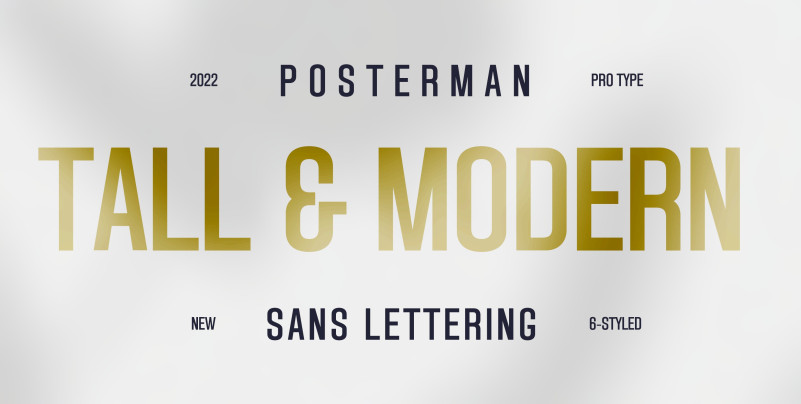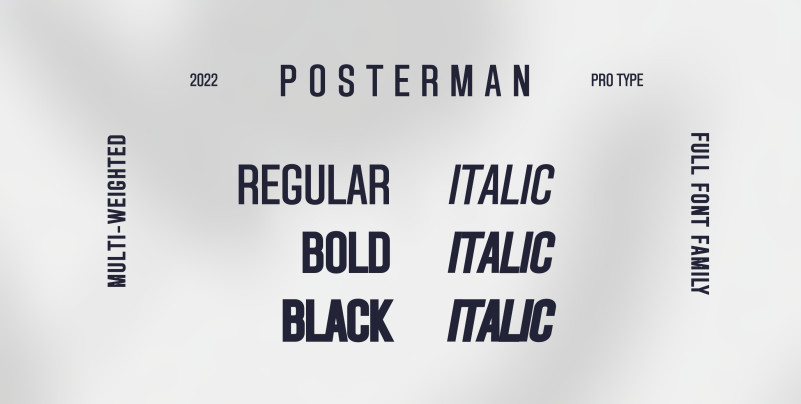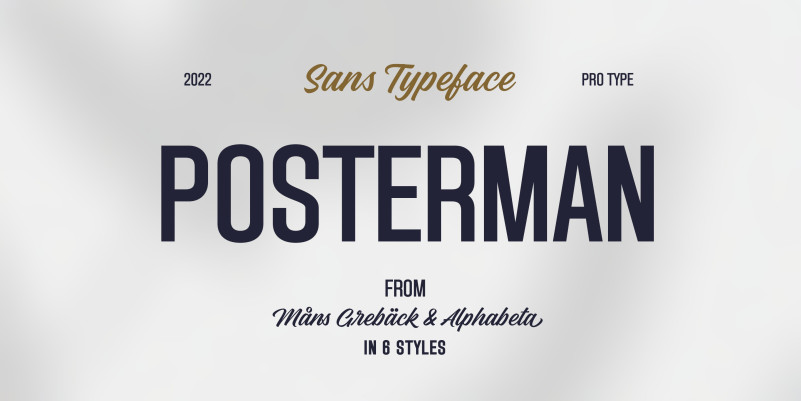
Posterman Font
Posterman Sans Serif Font, a sans serif font that is extremely minimal and clean. This font is exceptionally modern and suited to a wide range of designs.